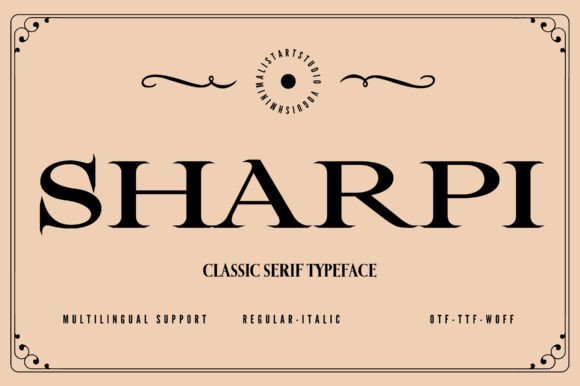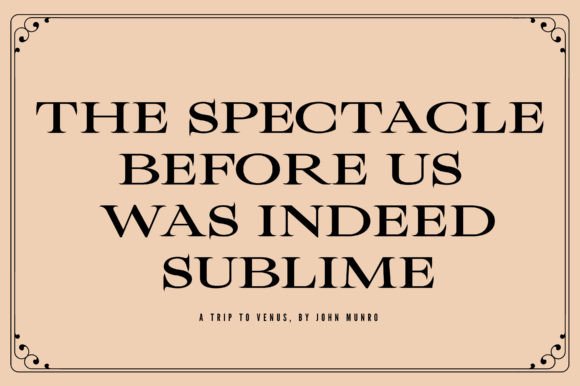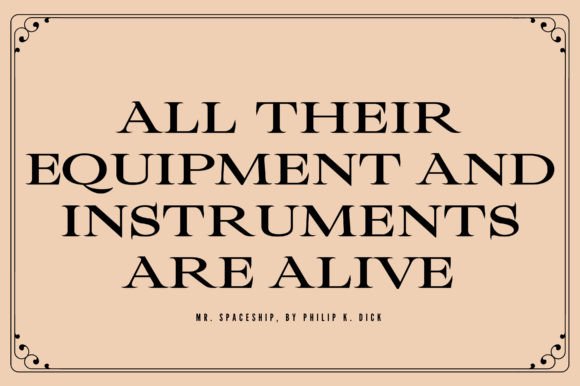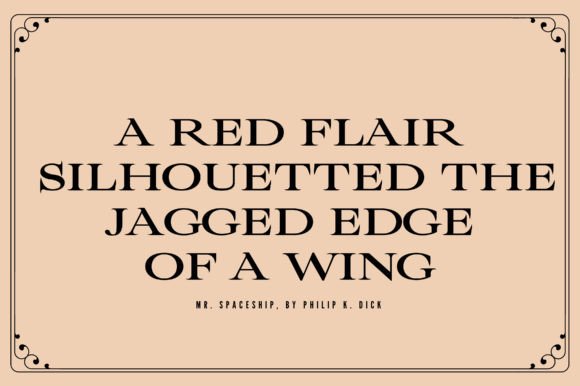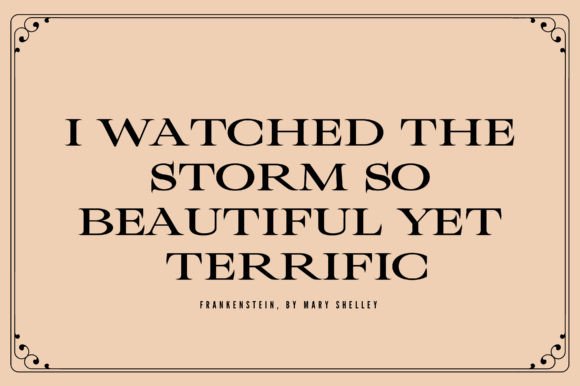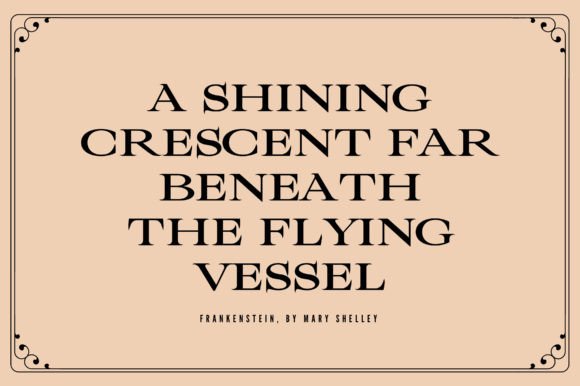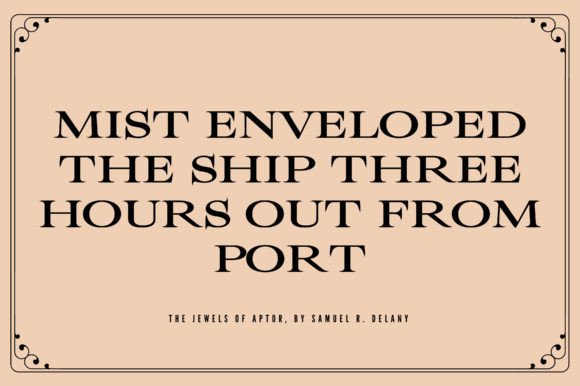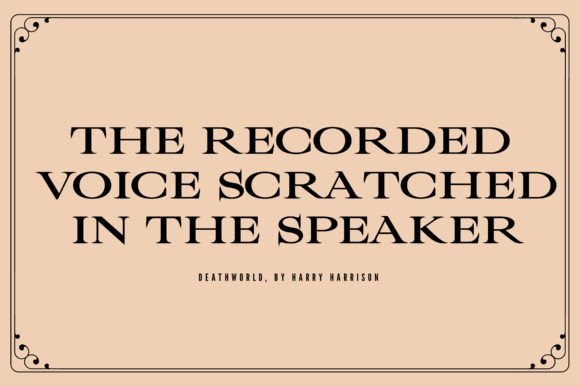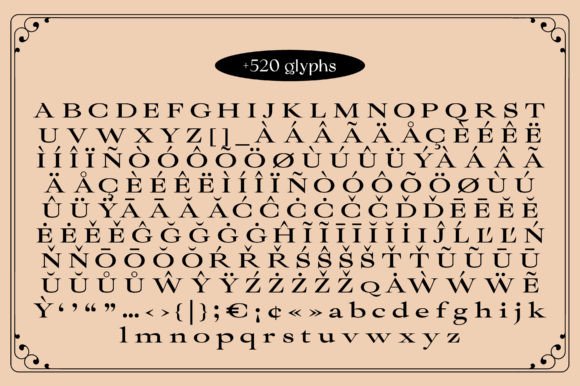
Sharpi Font
Introducing Sharpi, the epitome of chic, elegant, and minimalist typography. Designed with the utmost precision, Sharpi boasts a stunning collection of over 520 glyphs, ensuring that you have all the characters you need to bring your designs to life.
Sharpi’s sleek and refined serifs make it the perfect font for sophisticated branding and editorial projects. Whether you’re designing a magazine, a book cover, or a website, Sharpi’s clean lines and subtle curves will elevate your work to the next level.
But what really sets Sharpi apart is its multi-lingual support. With characters for Latin, Cyrillic, and Greek scripts, Sharpi can be used to communicate in a wide range of languages, making it an ideal choice for global brands and multi-lingual projects.
So if you’re looking for a font that exudes class, sophistication, and versatility, look no further than Sharpi. With its timeless style and comprehensive character set, Sharpi is sure to become a staple in your font collection for years to come.